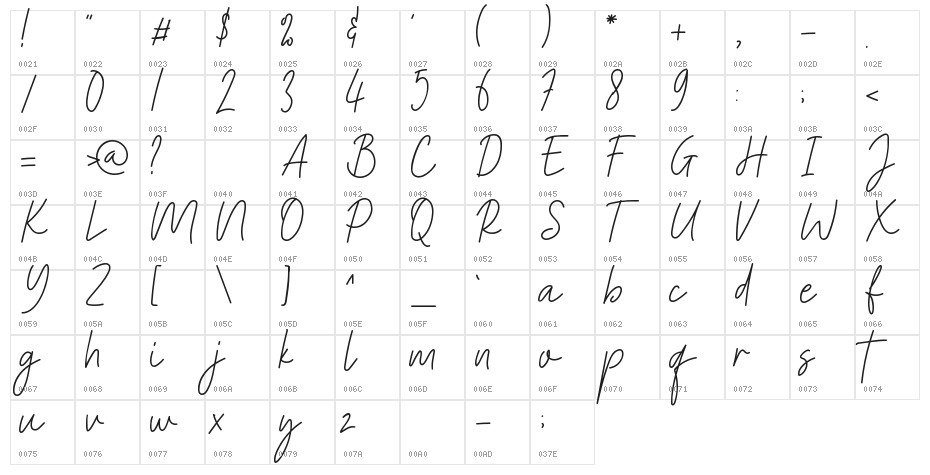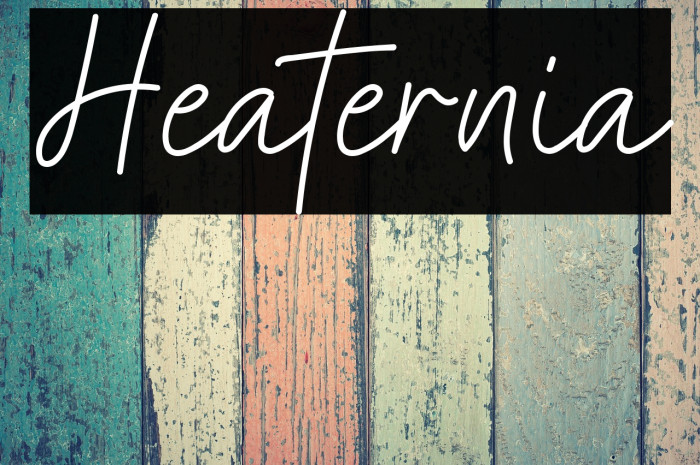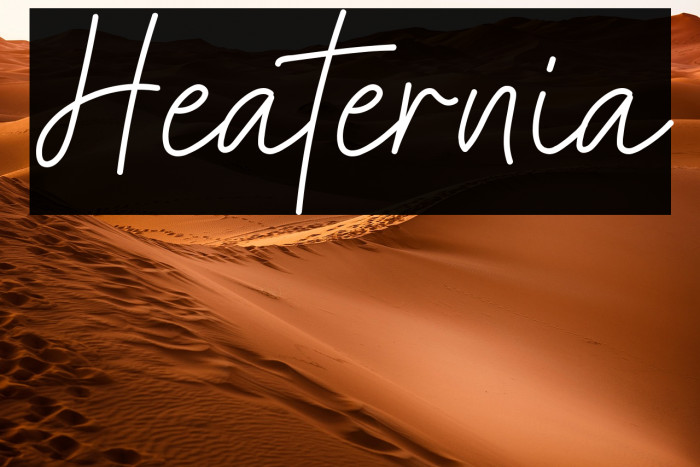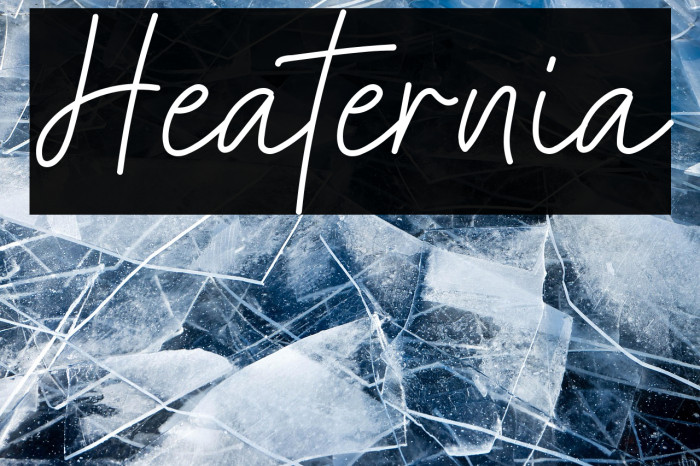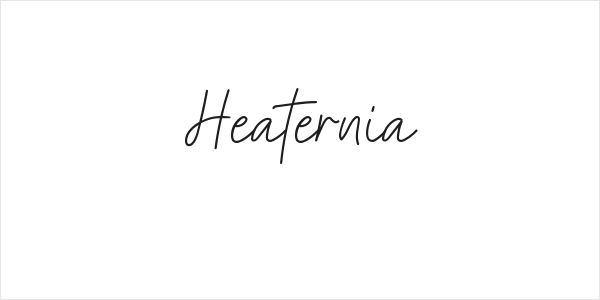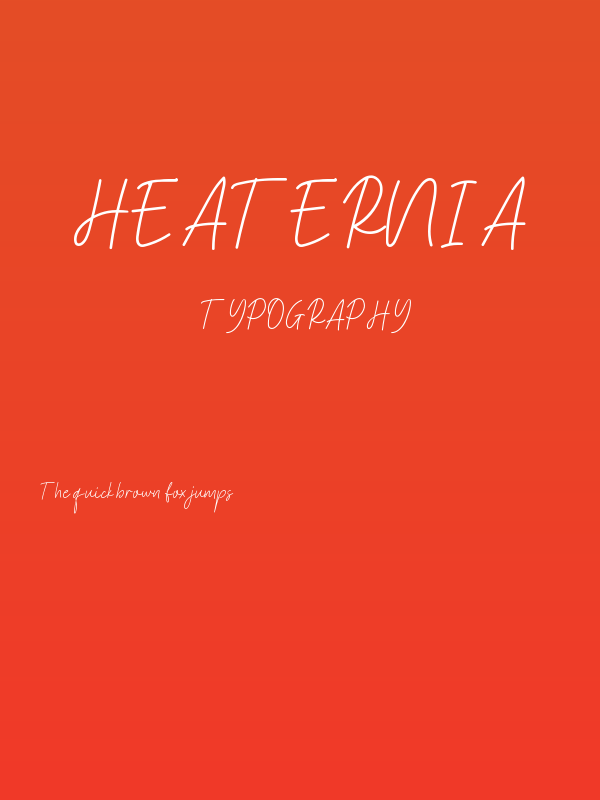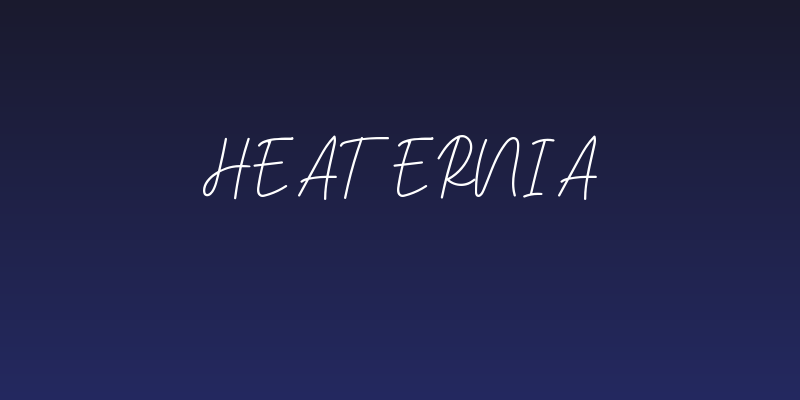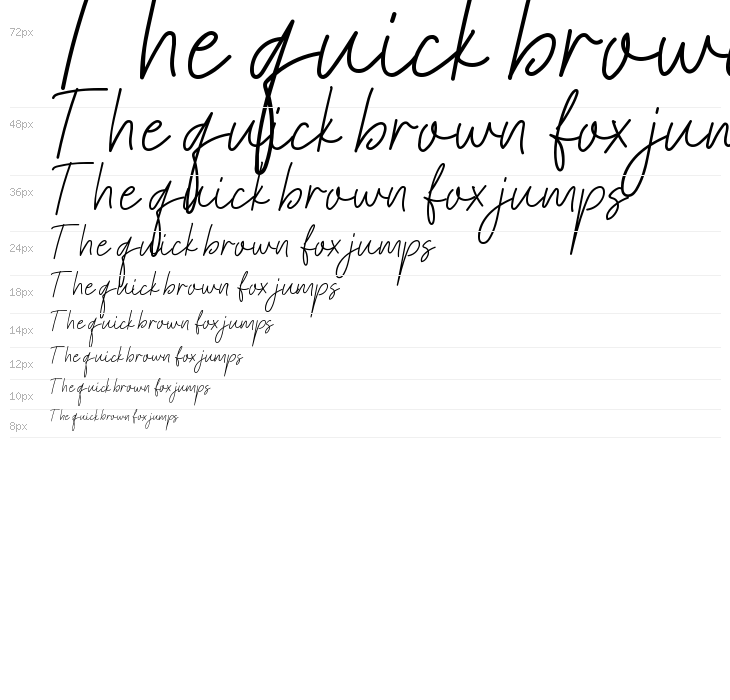
Heaternia Font
Heaternia Description
This font exudes a casual and fluid handwritten style, characterized by its smooth, flowing lines and natural curves. The uppercase letters maintain a consistent height, while the lowercase letters exhibit a slight slant, enhancing the script-like appearance. The numerals and special characters are designed to complement the overall aesthetic, maintaining the same fluidity and elegance. The strokes are moderately thick, providing a balanced contrast that ensures readability without sacrificing the handwritten charm. This font is ideal for projects that require a personal touch, such as invitations, greeting cards, and creative branding.
Overall StyleCasual, Elegant
Use CaseInvitations, Greeting cards, Personal branding
Proposed ProjectsIdeal for invitations, greeting cards, personal branding, and creative projects requiring a personal touch.